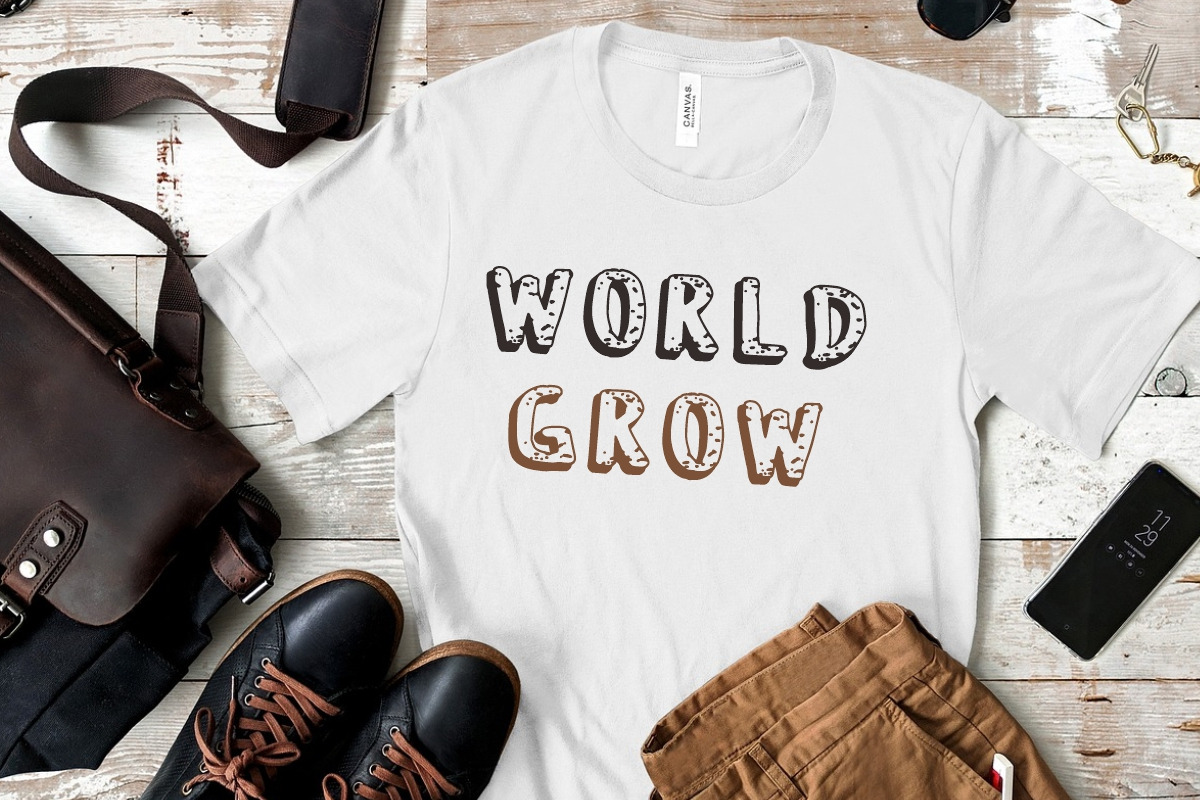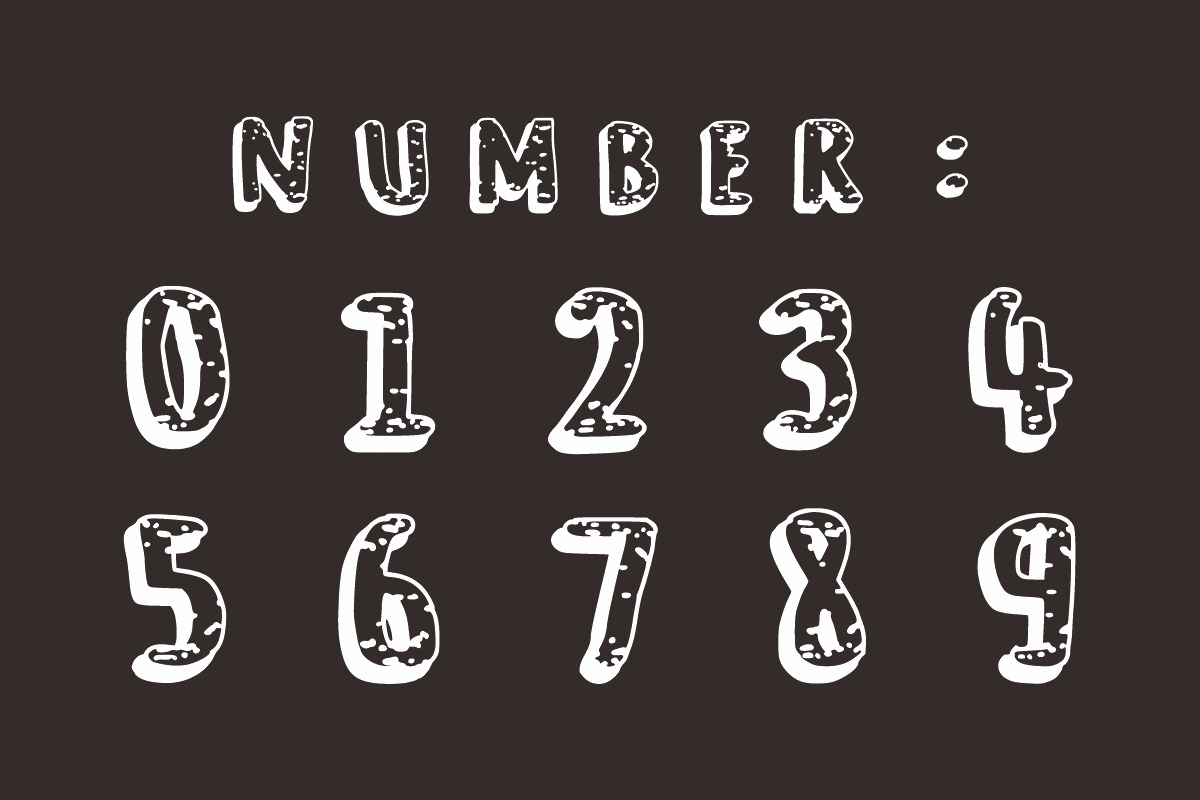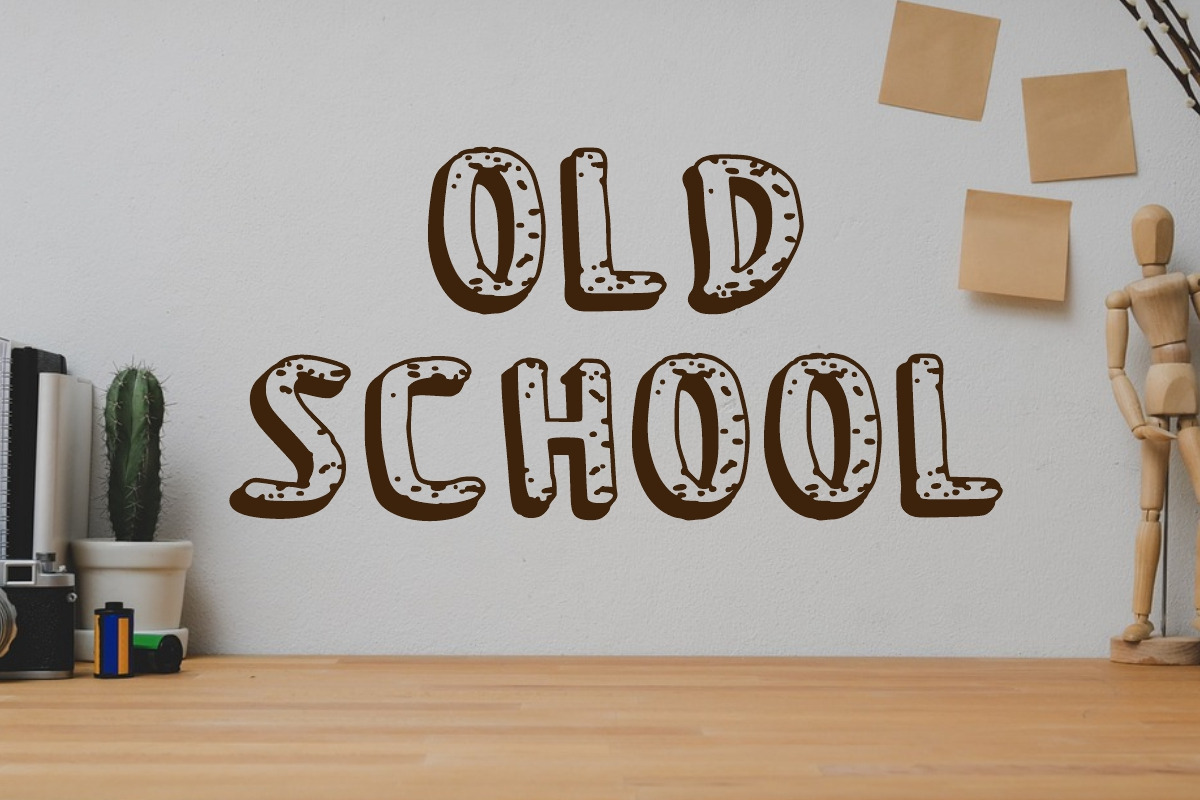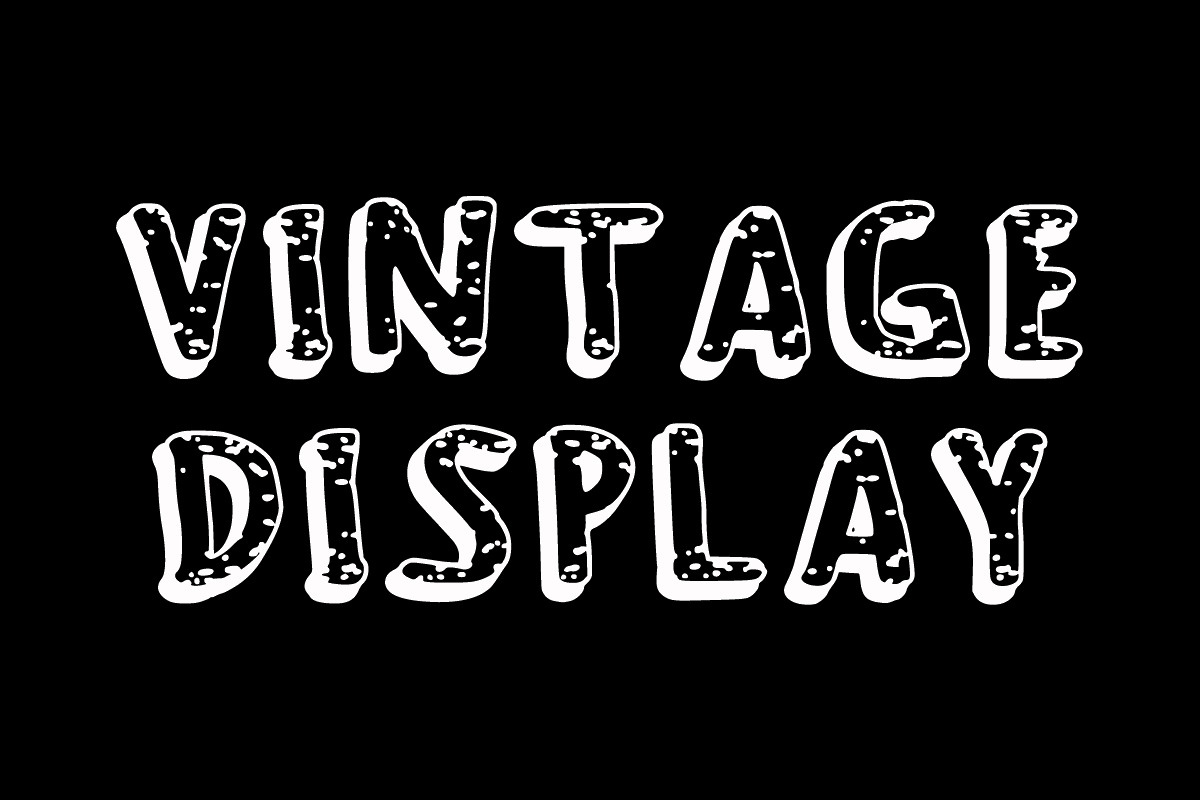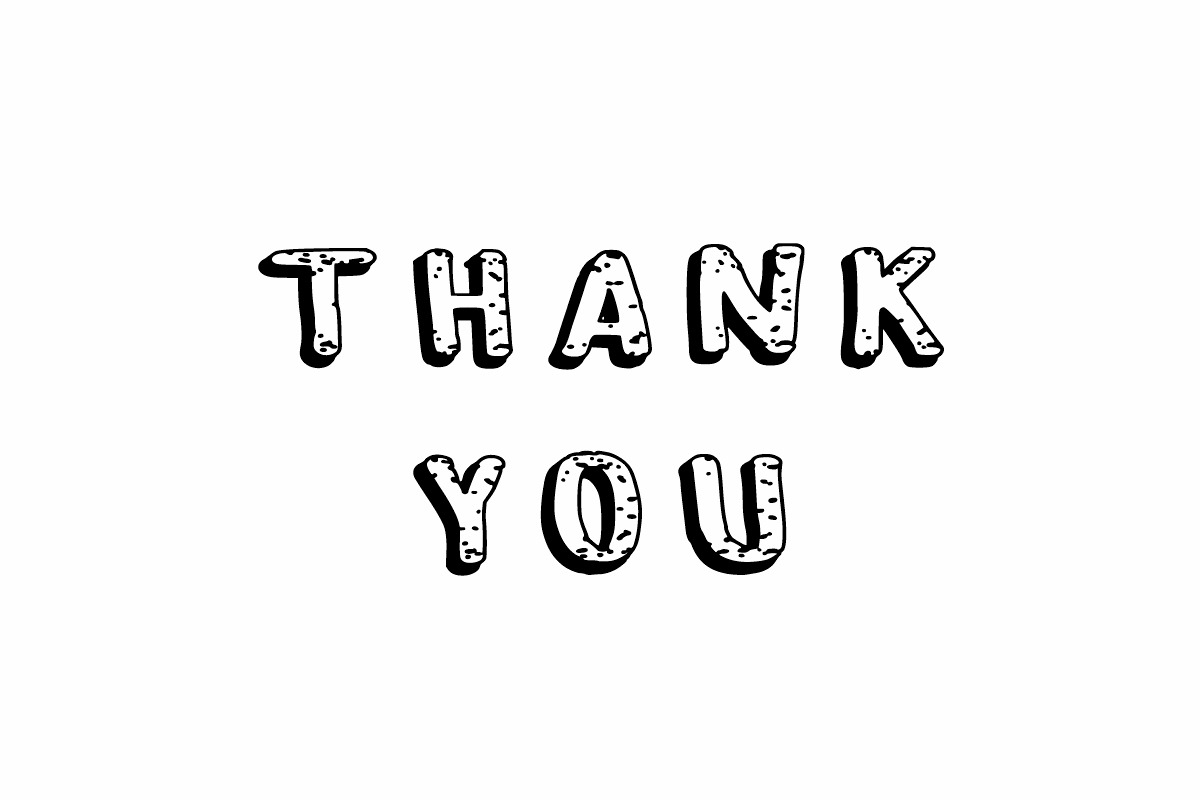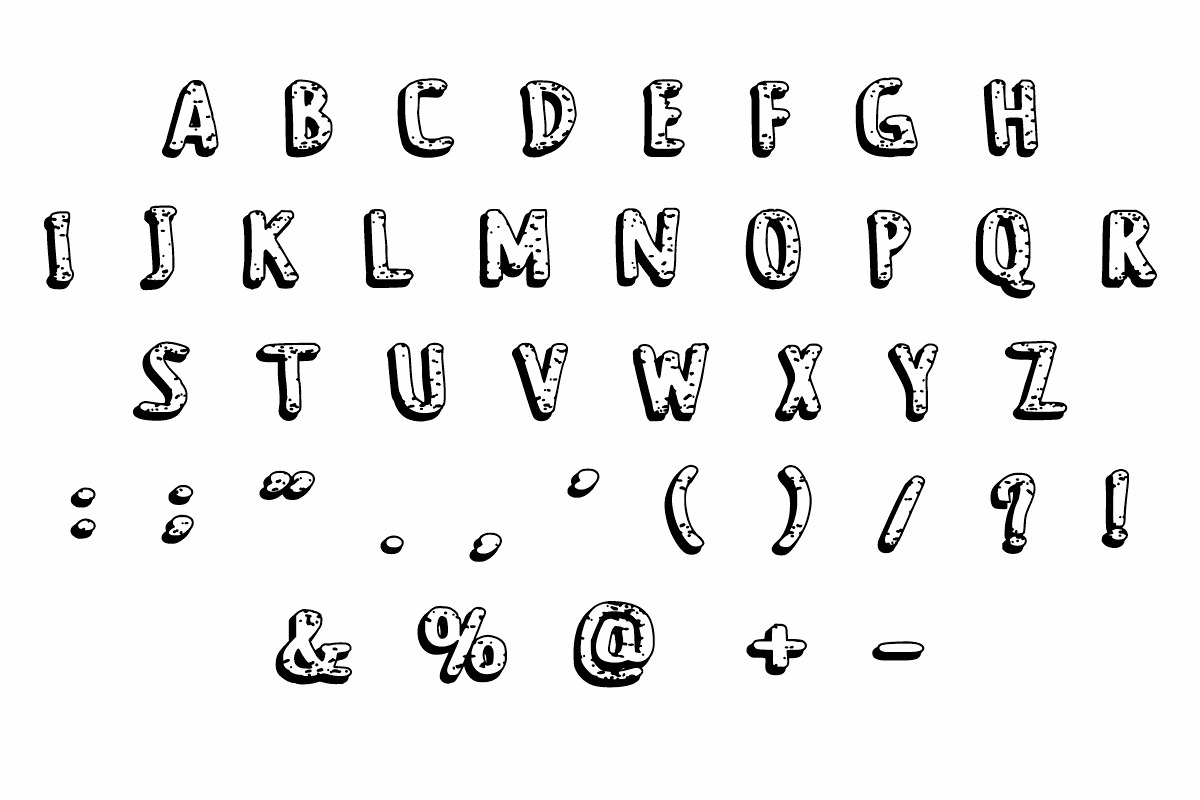
Black White
Black White is a fun and cool font that effortlessly fuses nostalgia with a modern edge. Its bold letterforms exude a playful, vintage vibe, capturing the spirit of bygone eras while adding a contemporary twist. Ideal for projects seeking a lively and retro-chic aesthetic, Black White brings joyous character to your designs.